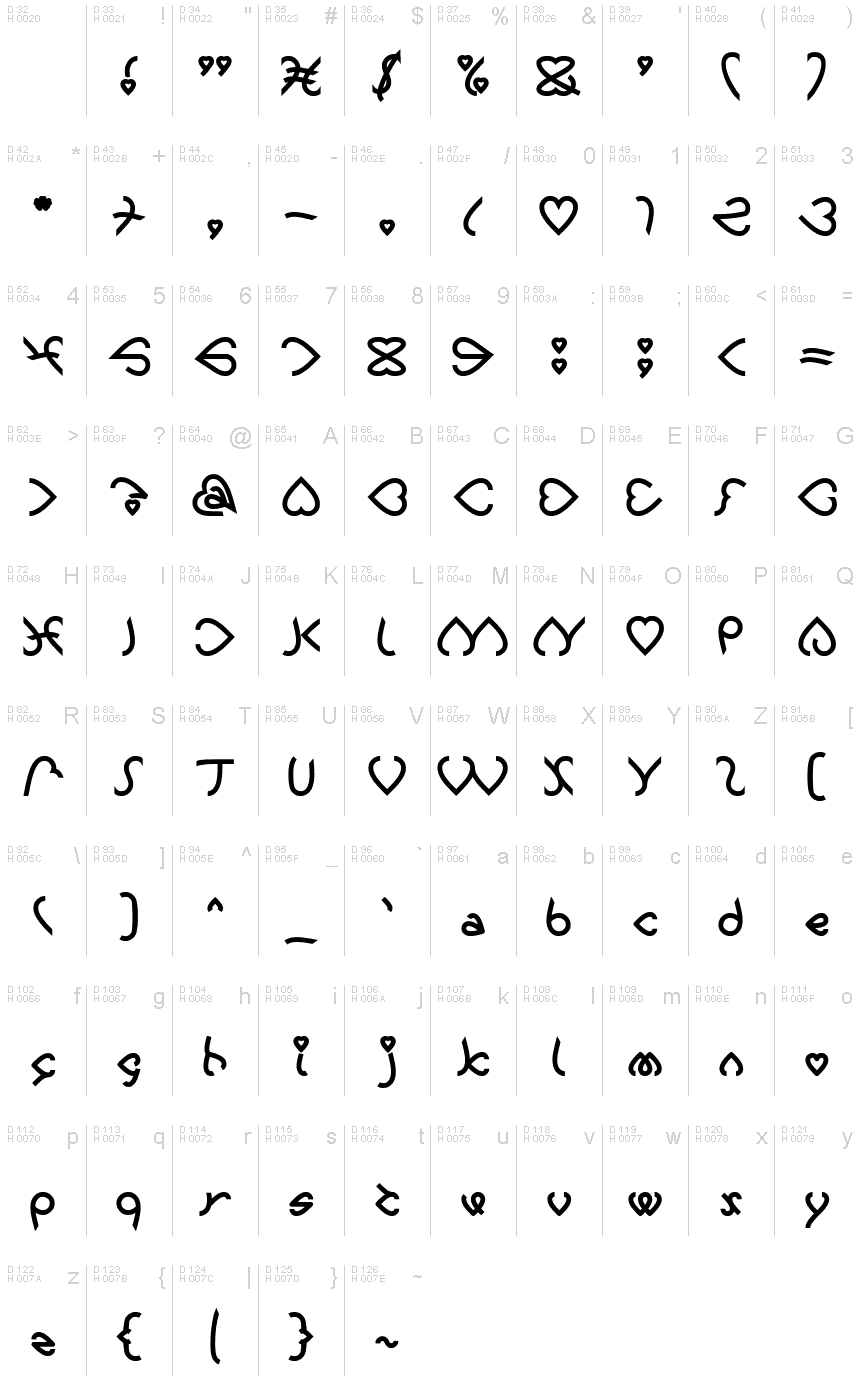
CELESTE by Wino S Kadir of Weknow is a free decorative Valentine display font shaped by hearts and sweeping, ribbon-like strokes. Its letters move between broad curves and sharp points, with heart forms tucked into bowls or raised as ornaments.
The romantic theme suits Valentine's Day cards, event posters, and confectionery packaging. It can also lend beauty branding or gift merchandise an affectionate signature. Since the heart motif is woven into the letters, the type becomes both wording and decoration in love-themed artwork.